11 Elite Classic Wedding Fonts for Save the Dates
When building high-end print suites, I always look for typography that carries historical weight without looking dated. A truly reliable Classic Wedding Font does exactly that—it anchors a layout with structural elegance. I have curated 11 of my absolute favorite studio assets that flawlessly bridge the gap between vintage sophistication and modern editorial design systems.
1. Garavintage Classic Wedding Font
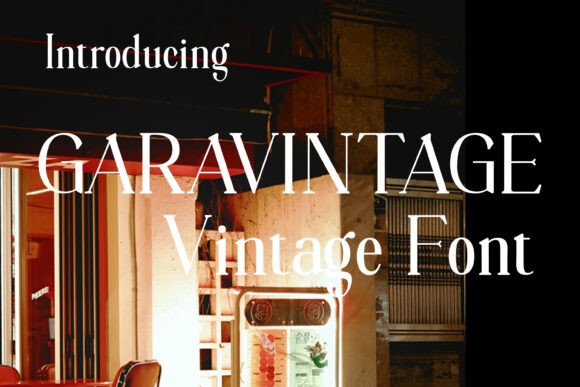
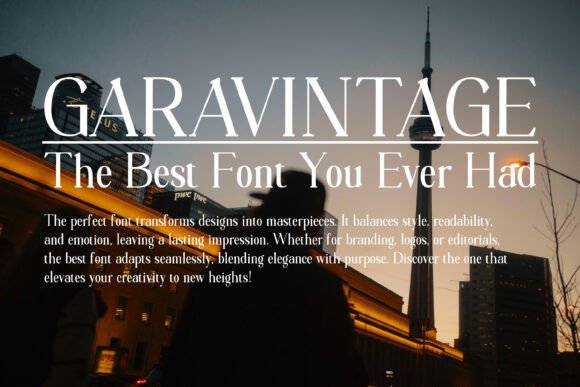
While flowing scripts usually dominate the bridal market, there is a grounding authority in an old-style serif that instantly anchors a layout. Garavintage is my absolute go-to when a project calls for a rock-solid Classic Wedding Font. This display typeface masterfully bridges vintage elegance with modern editorial style, bringing a crisp, premium weight to high-end header blocks, luxury magazines, and upscale event signage.
On the technical side, this versatile Classic Wedding Font stands out due to its refined details and clean vector lines. In my daily workflow, it functions as a total workhorse for crafting sleek logotypes, editorial invitation suites, and print assets. Its robust OpenType features ensure perfect structural flexibility across both digital mockups and letterpress cards, making it an essential asset for any timeless design system.
2. Arvina Classic Wedding Font
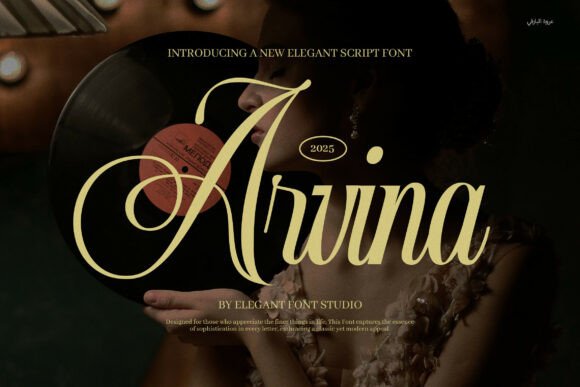
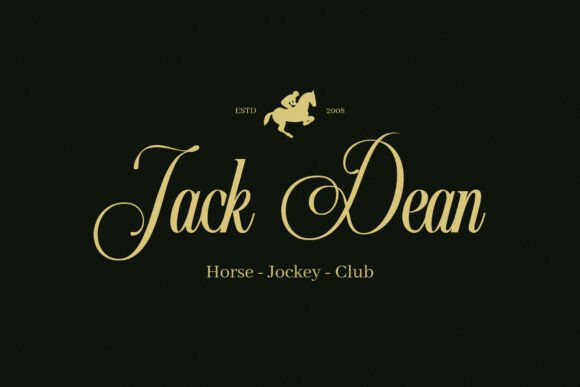
Finding a script that captures the weight of traditional dip-pen ink without looking messy is tough, but Arvina hits the mark instantly. This refined typeface is a standout choice for a Classic Wedding Font, blending sweeping, graceful curves with flawlessly executed calligraphic strokes. It bypasses rigid vector paths to inject a luxurious, handwritten touch into your artboards, making your main header lines feel completely bespoke and expensive.
What makes this Classic Wedding Font a permanent resident in my active toolkit is its incredible structural flexibility, packing a wide selection of alternate characters and stylistic ligatures. In my studio workflow, it functions as a total powerhouse for crafting clean save-the-date cards, large-format event signage, and formal invitation suites. Those custom character connections ensure a seamless visual hierarchy that instantly elevates standard print layouts into custom-inked art.
3. Grace Zyora Classic Wedding Font
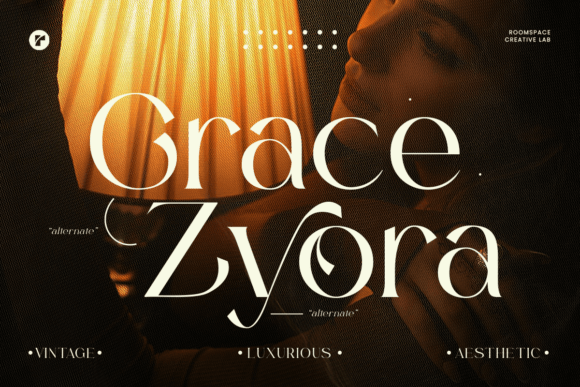
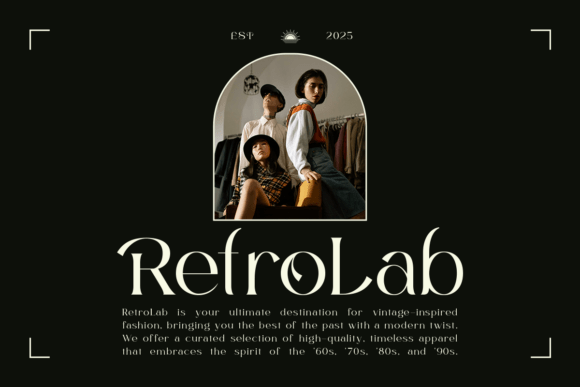
It’s rare to find a typeface that successfully marries traditional, old-world gravity with a sharp, contemporary edge, but Grace Zyora pulls it off flawlessly. If you are looking for a Classic Wedding Font that refuses to feel outdated, this stunning display face is an absolute dream for luxury layouts. Its elegant curves and striking alternate characters instantly command attention, working beautifully whether layered over bold visuals or set against clean, minimalist backdrops.
What makes this Classic Wedding Font a massive asset in my daily design routine is its incredible cross-industry versatility. Beyond typesetting high-end editorial layouts and bold brand logos, it functions beautifully for upscale wedding invitations that require an extra dose of refinement. The technical flexibility of its glyphs ensures that your typography maintains a clean visual hierarchy, making it a highly reliable tool for any premium print or digital system.
4. Adila Beauty Classic Wedding Font
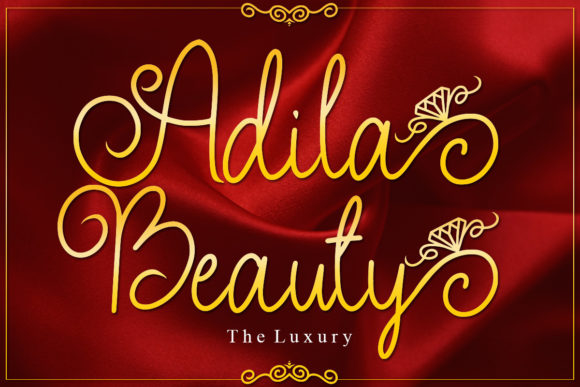
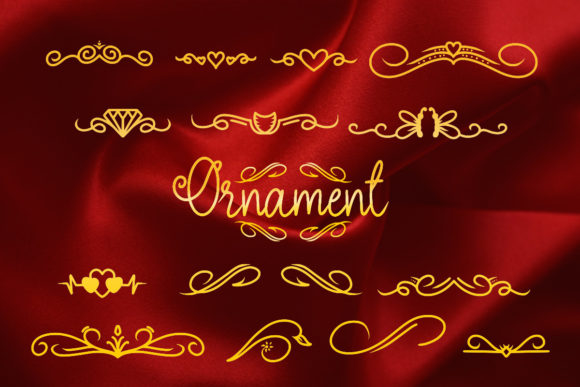
If you love traditional copperplate calligraphy but hate how stiff it can feel, Adila Beauty is going to be your new obsession. This masterfully crafted Classic Wedding Font takes old-school decorative script lines and injects them with a sharp, modern twist. It is unashamedly elegant, acting as a high-impact display face that brings instant luxury to your artboards and replaces sterile vectors with breathing ink work.
In my own studio, this versatile Classic Wedding Font has proven to be a total design chameleon. While it performs flawlessly for high-end bridal stationery and custom card headers, its robust layout works beautifully for vintage logos, fashion labels, and artisan packaging. If you need a display script that commands attention and adds an air of premium craftsmanship to your visual hierarchy, Adila Beauty is a stellar choice.
5. Joleni Classic Wedding Font
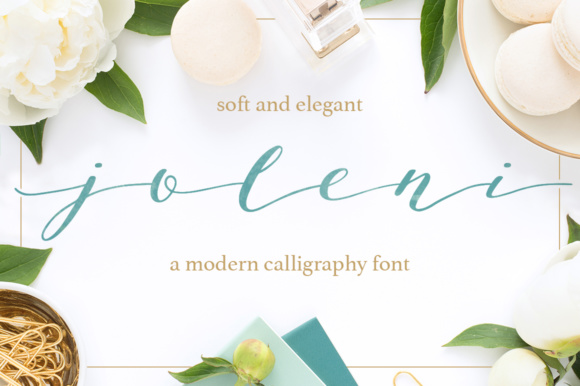
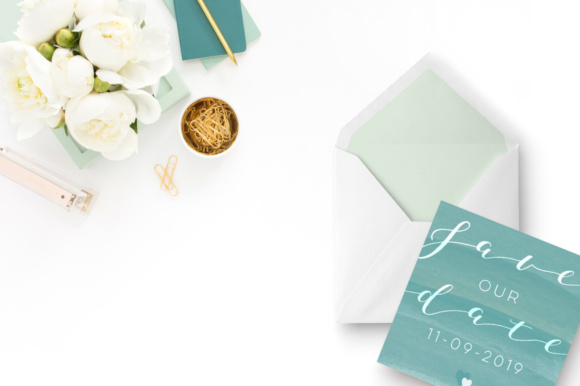
Sometimes you don’t need a heavy, dramatic typeface to make a bold statement; a soft, hand-drawn touch can speak volumes on a blank canvas. Joleni is a beautiful example of this subtle approach, making it an excellent choice for a Classic Wedding Font. Built with a carefully handmade construction, it brings a soft, flowing grace to the layout that feels completely personal rather than mass-produced.
What makes this particular Classic Wedding Font a standout asset in a studio toolkit is how smoothly it integrates into clean, high-end print setups. In my own design experiments, it functions like an absolute dream for traditional wedding stationery collections, fine-art floral wall prints, and elegant, feminine business logos. If you need a script that trades rigid vector lines for a gentle, human touch while maintaining a crisp visual hierarchy, Joleni delivers a flawless finish.
Conclusion
At the end of the day, choose a Classic Wedding Font that serves your layout’s specific print and digital constraints. Whether you need the sharp geometry of an old-style display serif or the fluid lines of structured calligraphy, these 11 choices keep your visual hierarchy crisp. Drop them into your active workspace and watch your project transform into an upscale masterpiece.